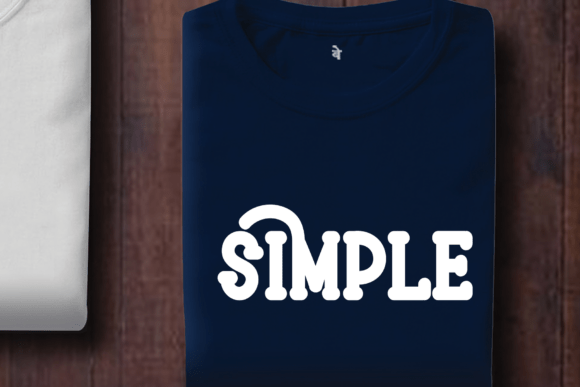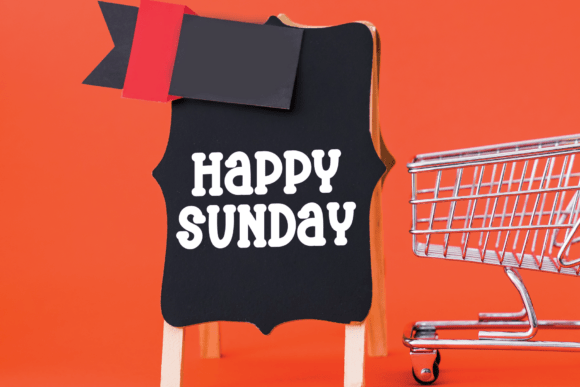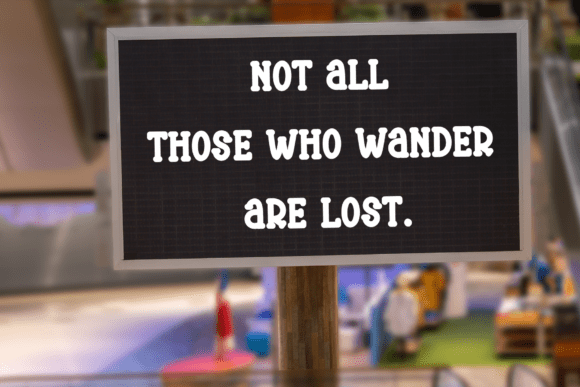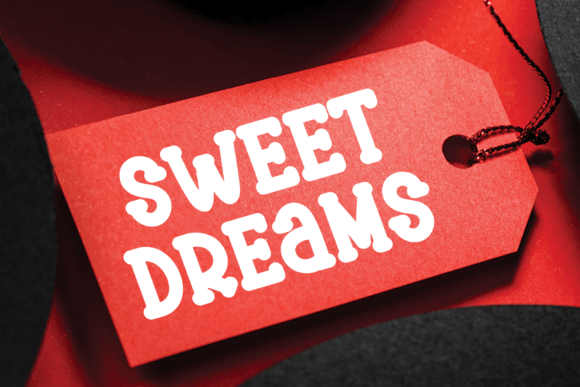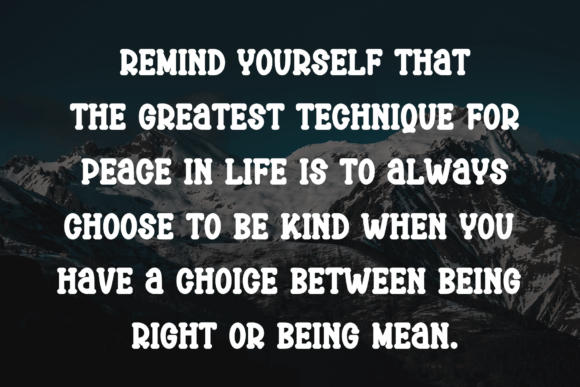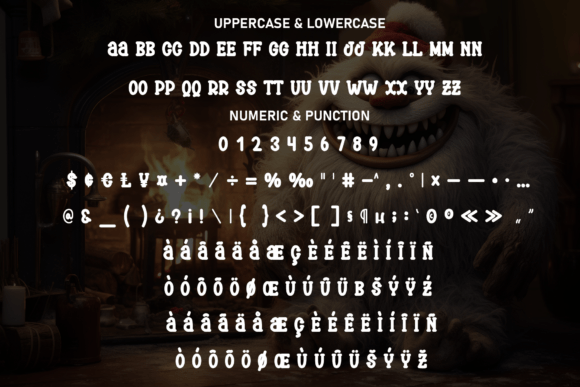
The Grinch Stole My Design Worries: A Deep Dive into the Grinches Font
I still remember the design project that had me pulling my hair out. I was working on a promotional poster for a local event, and I just couldn’t find the right font. The client wanted something bold, modern, and eye-catching, but everything I tried seemed to fall flat. That was until I stumbled upon the Grinches Font. With its thick strokes, strong presence, and modern flair, this font was exactly what I needed to make my design pop.
An Honest Review: What I Love and What I Don’t
- ✅ High-impact visibility: This font is perfect for headlines, posters, branding, logos, and any project that needs to grab attention.
- ✅ Effortless style: The Grinches Font delivers a modern and sleek look without requiring too much design expertise.
- ✅ Versatility: It works well for both digital and print projects, making it a great addition to any design toolkit.
The Not-So-Good Stuff 🤔
- ⚠️ Limited use in body text: Due to its bold nature, the Grinches Font might not be the best choice for lengthy paragraphs or body text.
- ⚠️ Some kerning issues: As with any font, you might encounter some kerning issues, especially when using it in combination with other fonts.
The Story Behind Grinches Font: A Designer Inspiration
The Grinches Font was created by a team of designers who wanted to create a font that would make a bold statement. Inspired by the classic Dr. Seuss character, they aimed to create a font that would be both modern and playful. After months of tweaking and refining, the Grinches Font was born – a font that is both eye-catching and versatile.
Q: What type of projects is Grinches Font best suited for?
A: Grinches Font is ideal for projects that require a bold and eye-catching font, such as headlines, posters, branding, logos, and promotional materials.
Q: Can I use Grinches Font for body text?
A: While Grinches Font can be used for body text, it’s not recommended due to its bold nature. It’s best suited for headings and titles.
Q: Is Grinches Font suitable for digital projects?
A: Yes, Grinches Font works well for digital projects, including social media graphics, website headers, and email marketing campaigns.